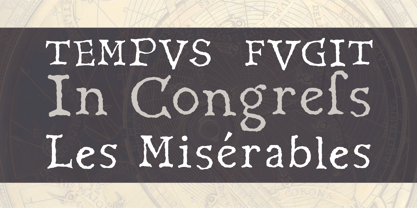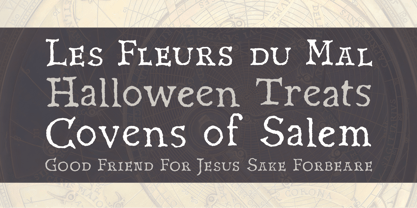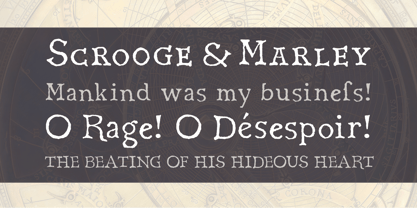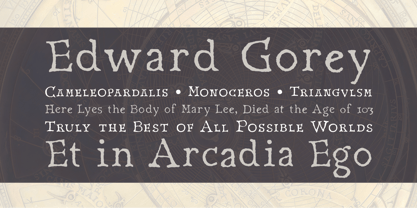
Horologium
by The Ampersand Forest
Horologium is an antiqued serif face with contextual and historical alternates inspired by the lettering on the 16th-century planispheric astrolabes of Georg Hartmann.
It works beautifully as a historical face, but also as a spooky Halloween face!